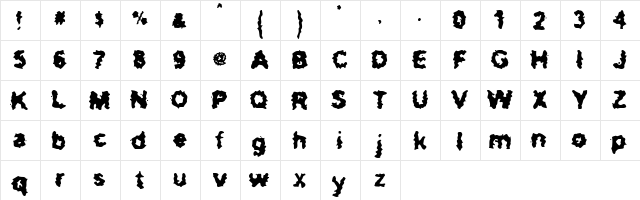
Too Much too Drink Regular Font Preview
Too Much too Drink Regular
Too Much too Drink Regular Font Details
Design Context for Too Much too Drink Typeface
Too Much too Drink is a composed and adaptable typeface that performs quietly and consistently across a wide range of design contexts.